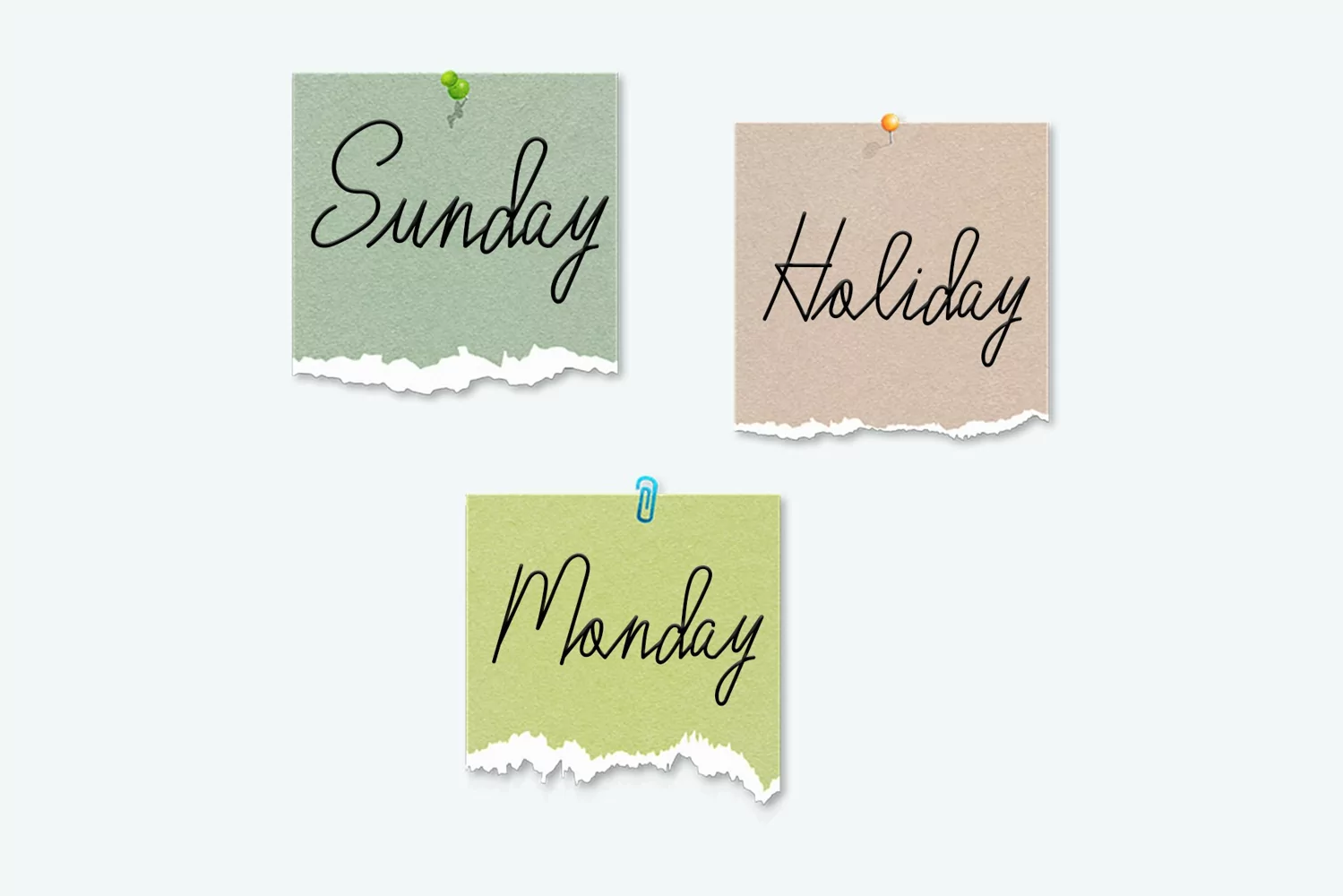
Introducing, this is our newest product, we call this product Jelita,
It looks amazing with sweet touches and beautiful curves in each letter. Jelita fonts are perfect for: wedding invitations, fashion magazines, logos, signatures, photography, watermarks, wall displays, social media,